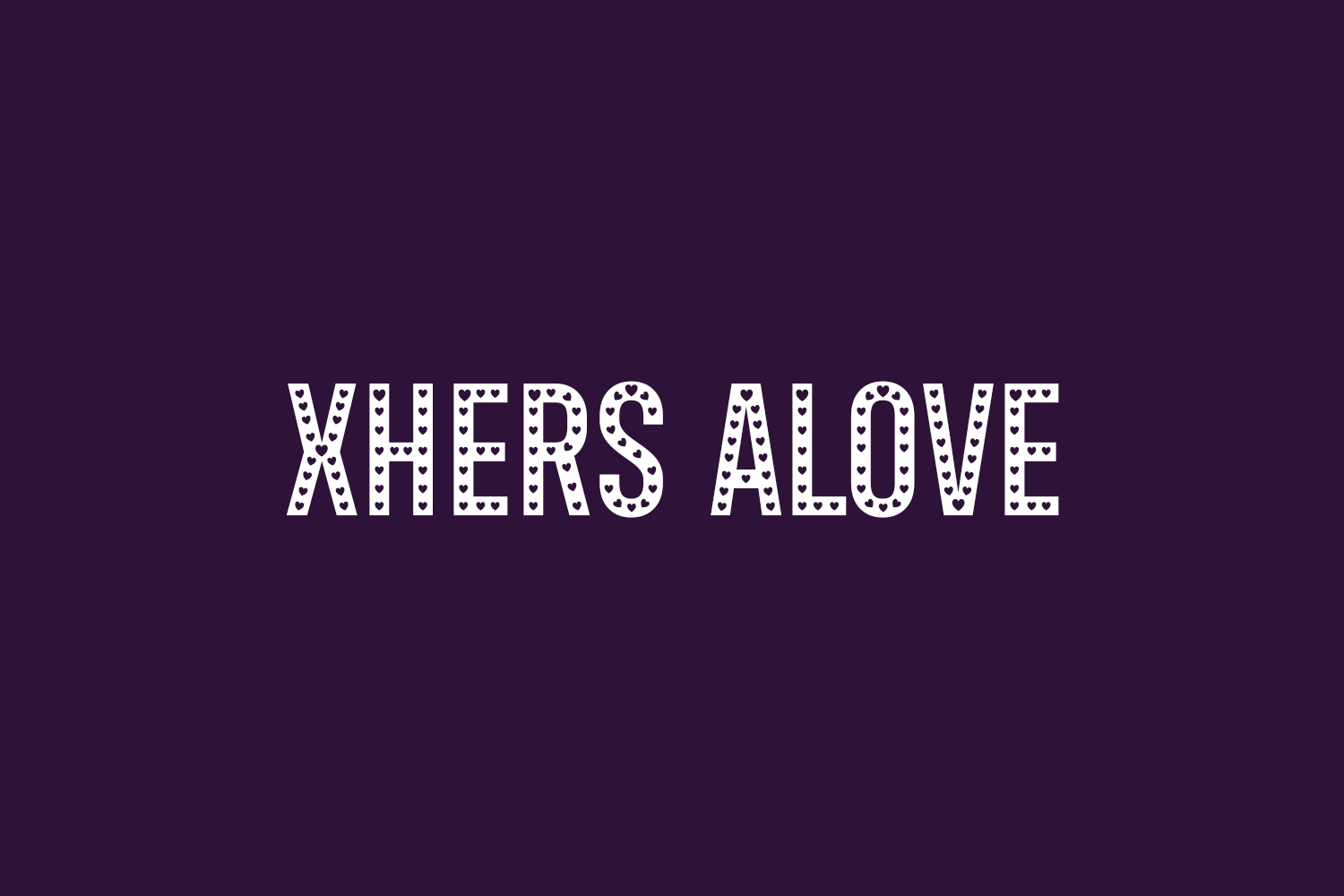
Xhers Alove Free Font Family is a sweet, lovely font that features little hearts inside the letters. Great for creating love-themed designs, such as wedding invites, Mother’s Day cards, Valentine’s designs, and much more. Xhers Alove Free Font Family was designed by 7NTypes and is free for personal use only. Please purchase the full version for commercial use.